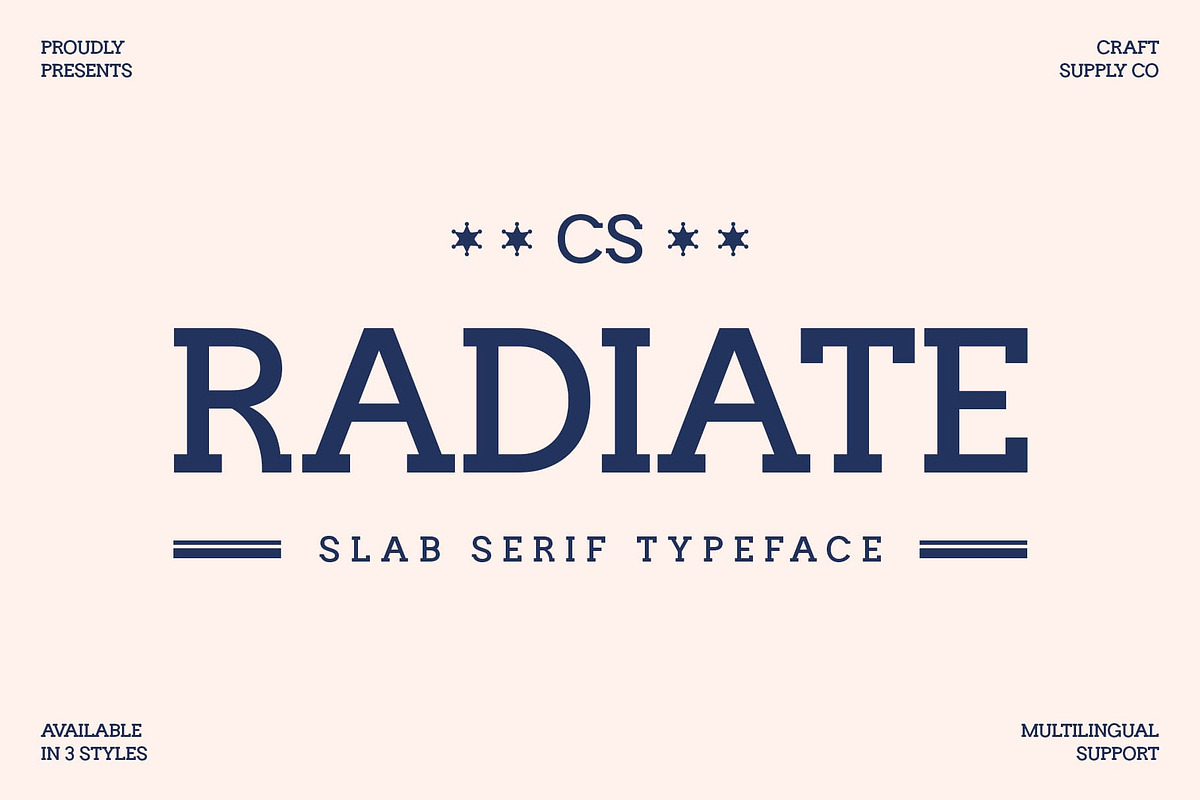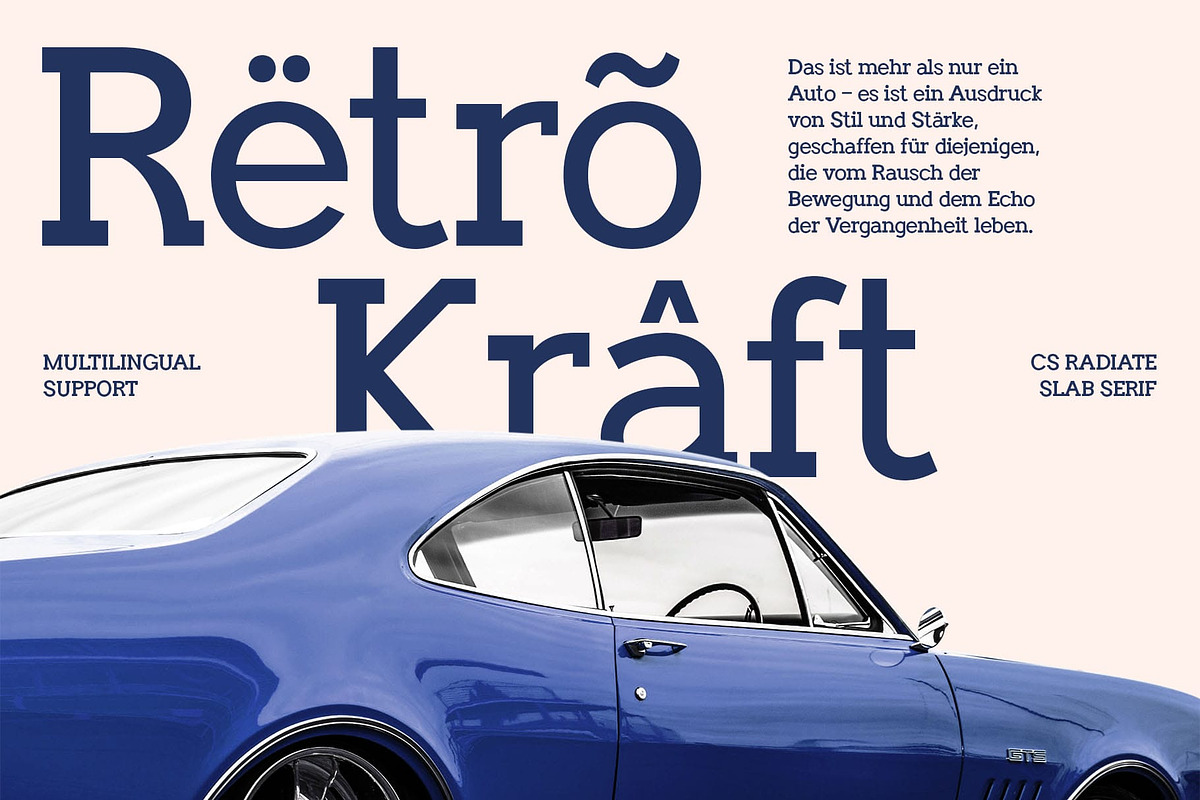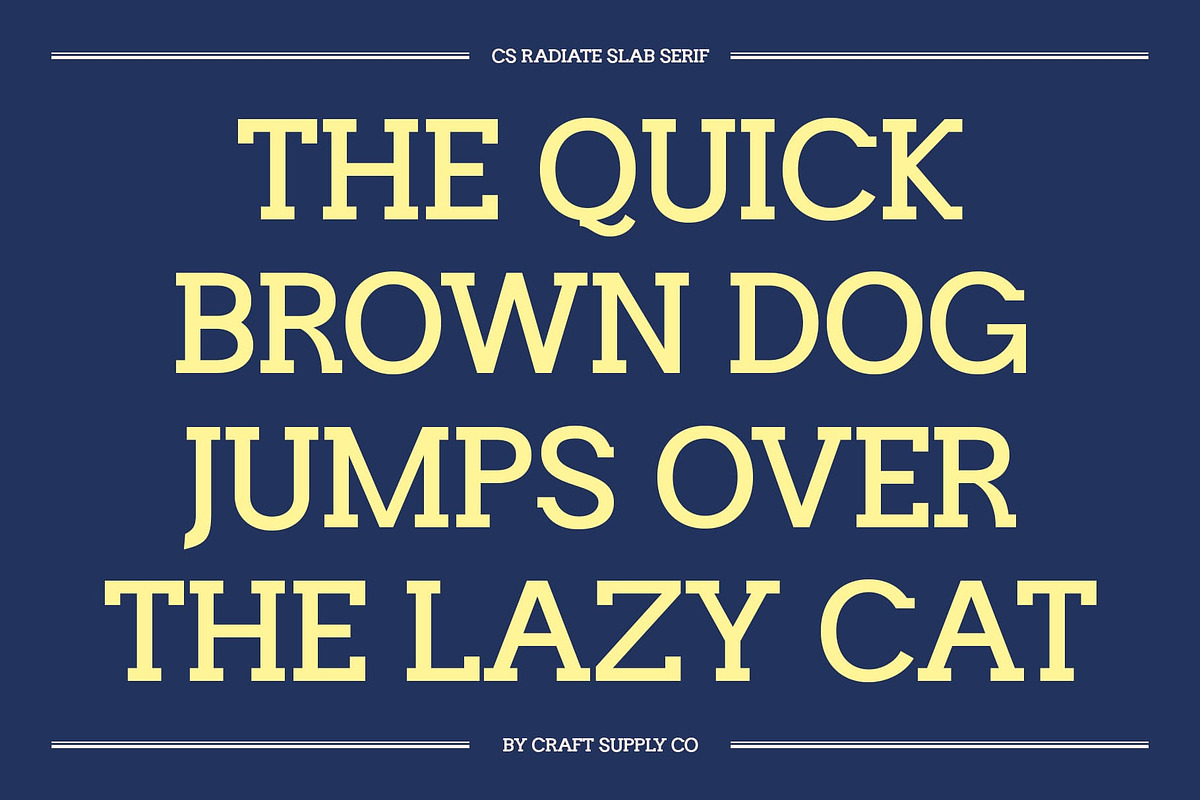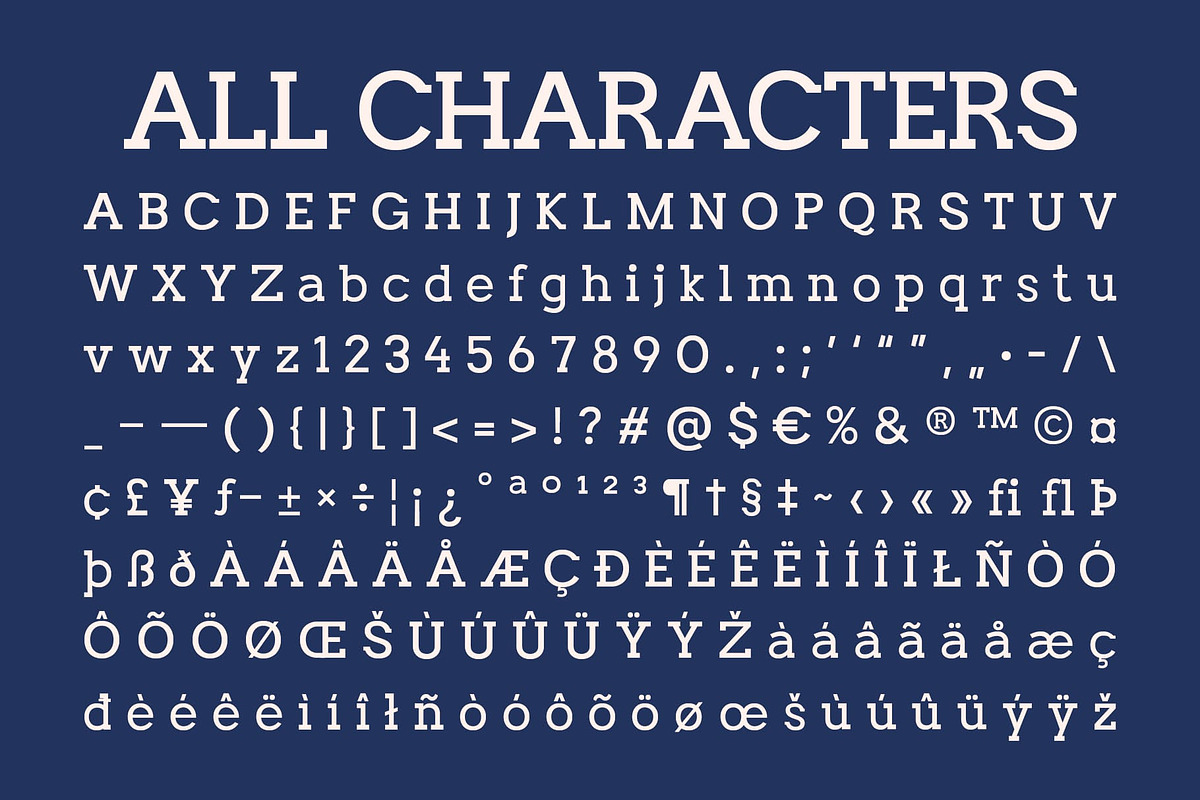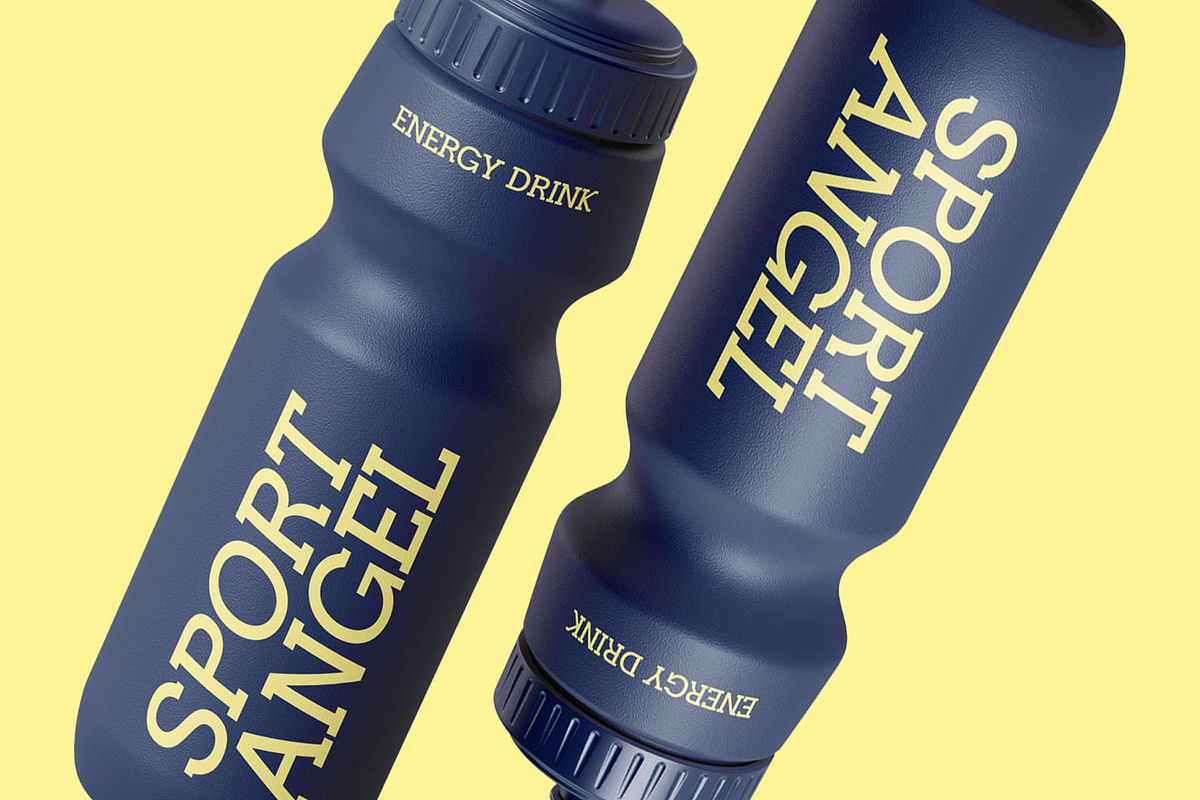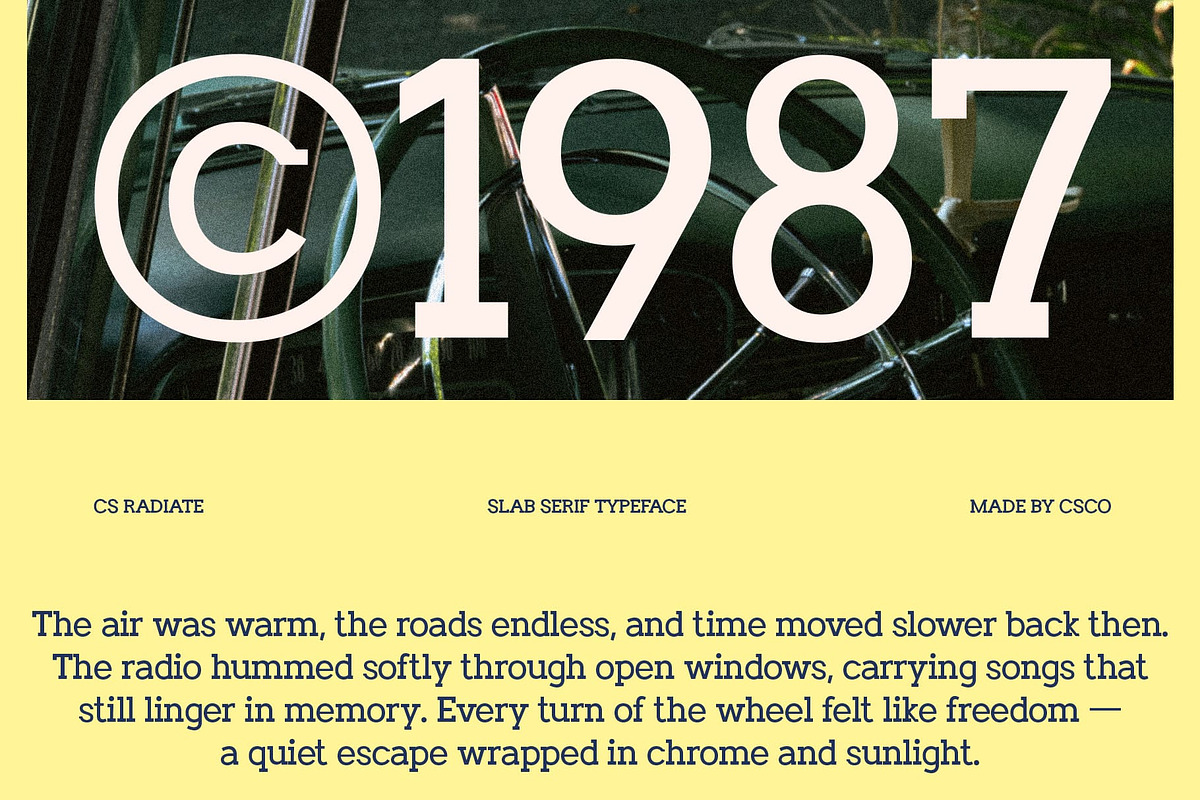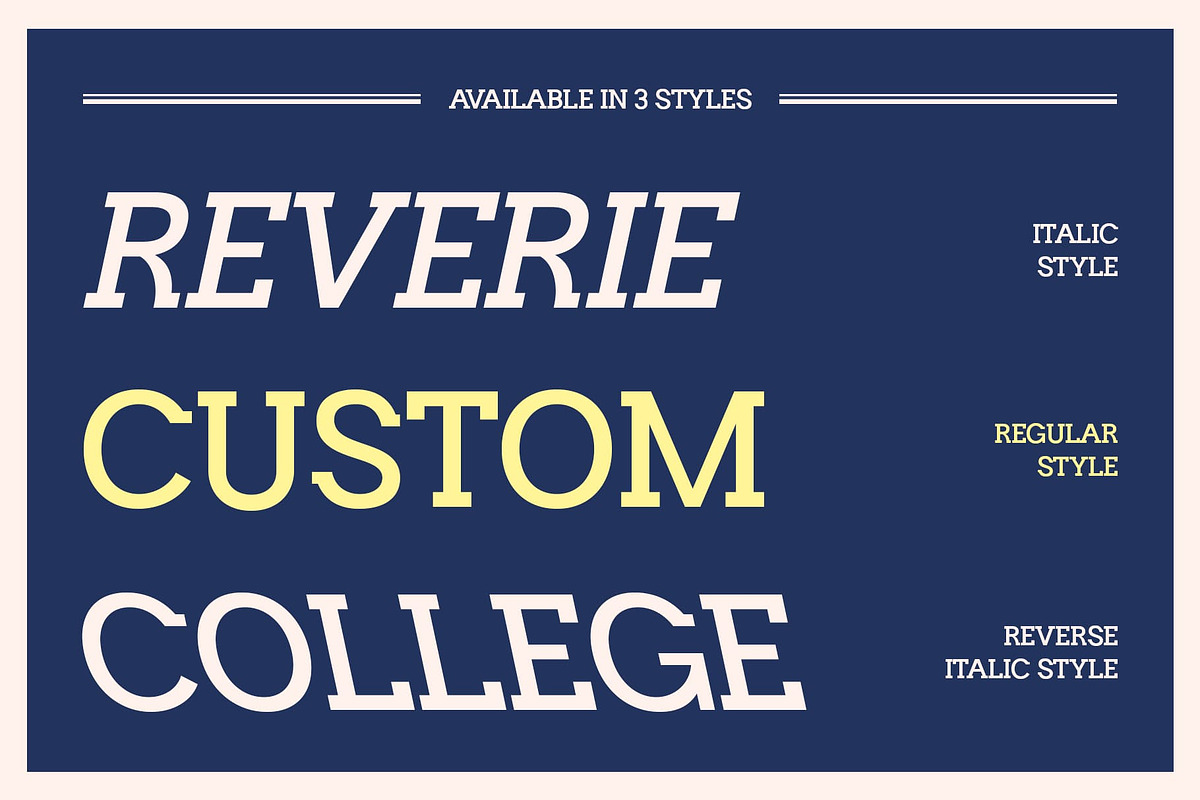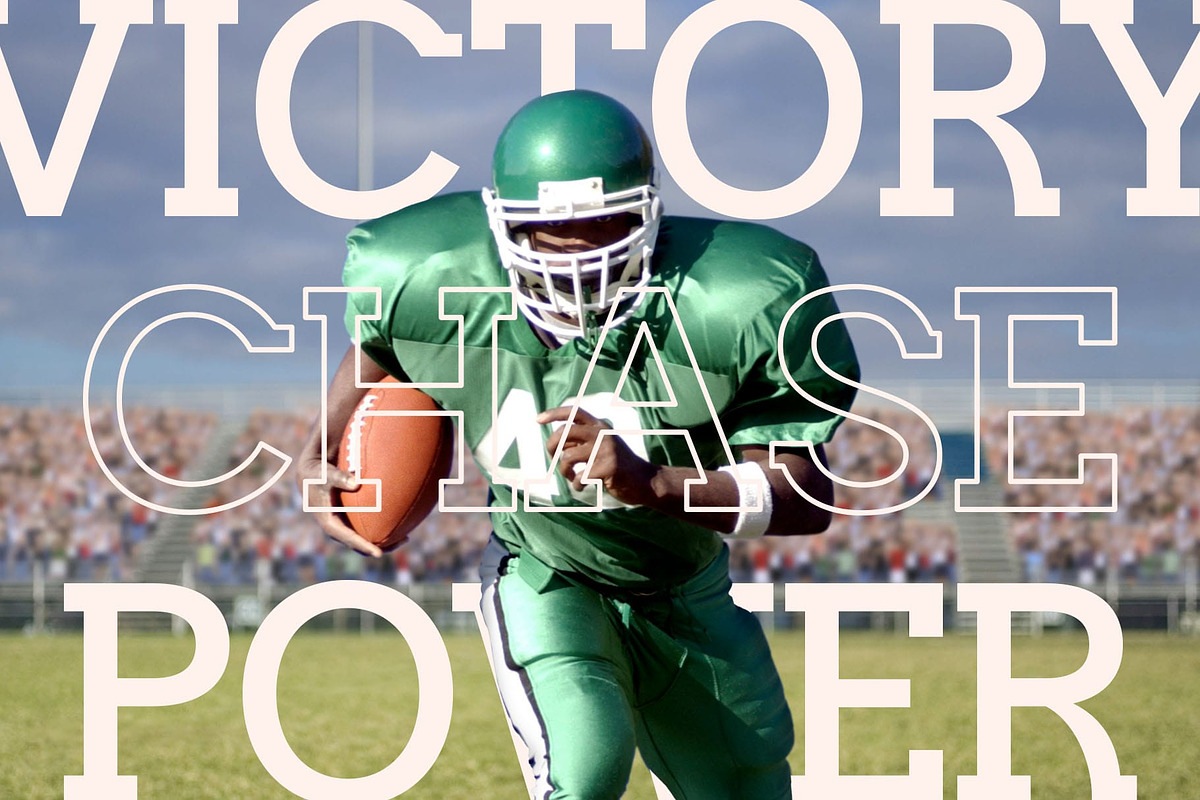
CS Radiate – Slab Serif Font
CS Radiate – Slab Serif Font: Strength, Structure, and Modern Boldness
Powerful Slab Serif for Confident Design This is a bold slab serif font designed to convey strength and authority. Its thick serifs and geometric proportions create a commanding presence that instantly draws attention. Perfect for modern designers seeking a typeface that embodies both power and precision.
Built for Impact and Readability Engineered for clarity, this font maintains excellent legibility even from a distance. Whether on billboards, posters, or digital headlines, its solid letterforms ensure your message stands out loud and clear. Every stroke is carefully balanced to enhance visibility without sacrificing style.
Modern Style with Classic Structure Blending traditional slab serif roots with a contemporary twist, this font brings versatility to modern design. The bold forms evoke reliability and confidence, while subtle modern refinements keep it visually fresh and relevant for branding, advertising, and editorial use.
Perfect for Strong Visual Branding From striking logos to commanding titles, this font’s sturdy architecture communicates power and professionalism. Its assertive character makes it ideal for industries like tech, sports, or media anywhere a strong and confident brand voice is needed.
- CS Radiate Regular
- CS Radiate Italic
- CS Radiate Reverse Italic